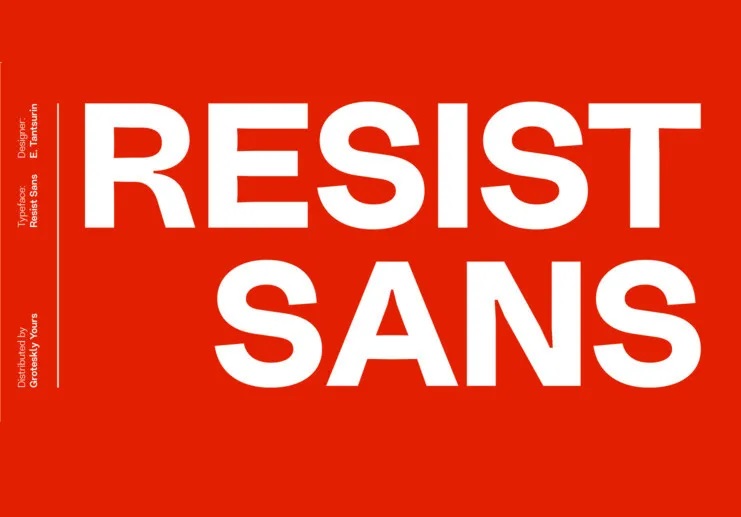
Resist Sans Font Family
Resist Sans Font
This is a geometric sans serif and modern script hybrid font in two family variations. This font is perfect to add a hand drawn touch to any project! Introducing Resist Sans Serif Font. It’s a free-spirited neo-grotesque that embodies both the innate desire for revolt and a tendency towards uniformity.
While Resist Sans preserves the neat, minimalist look which is associated with neo-grotesques, it also accentuates the tentativeness of each letter form. The name, too, hints at the rebellious character of the typeface. Resist Sans comes in 20 styles (10 uprights and matching obliques).
It’s provides a distinct, creative, and expressive message for branding, advertising, packaging, headlines, magazines, websites, logos, and more.
Resist Sans Serif Font Family